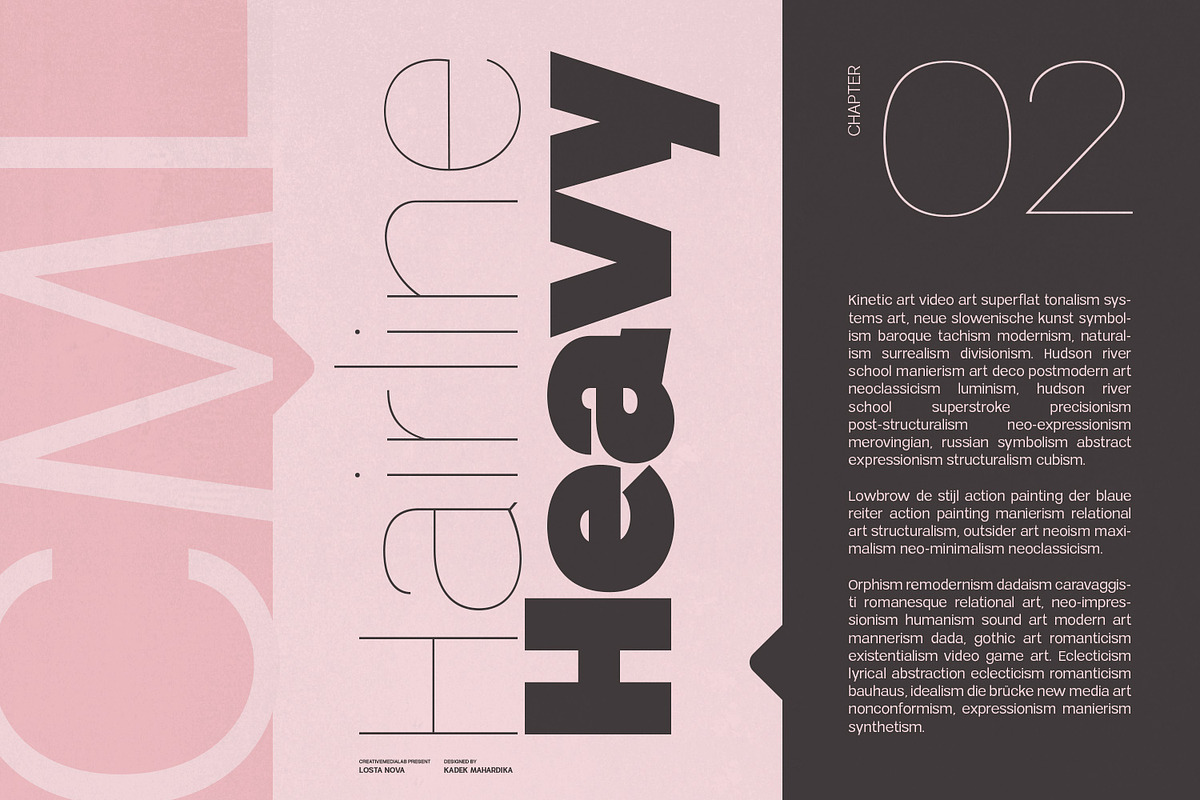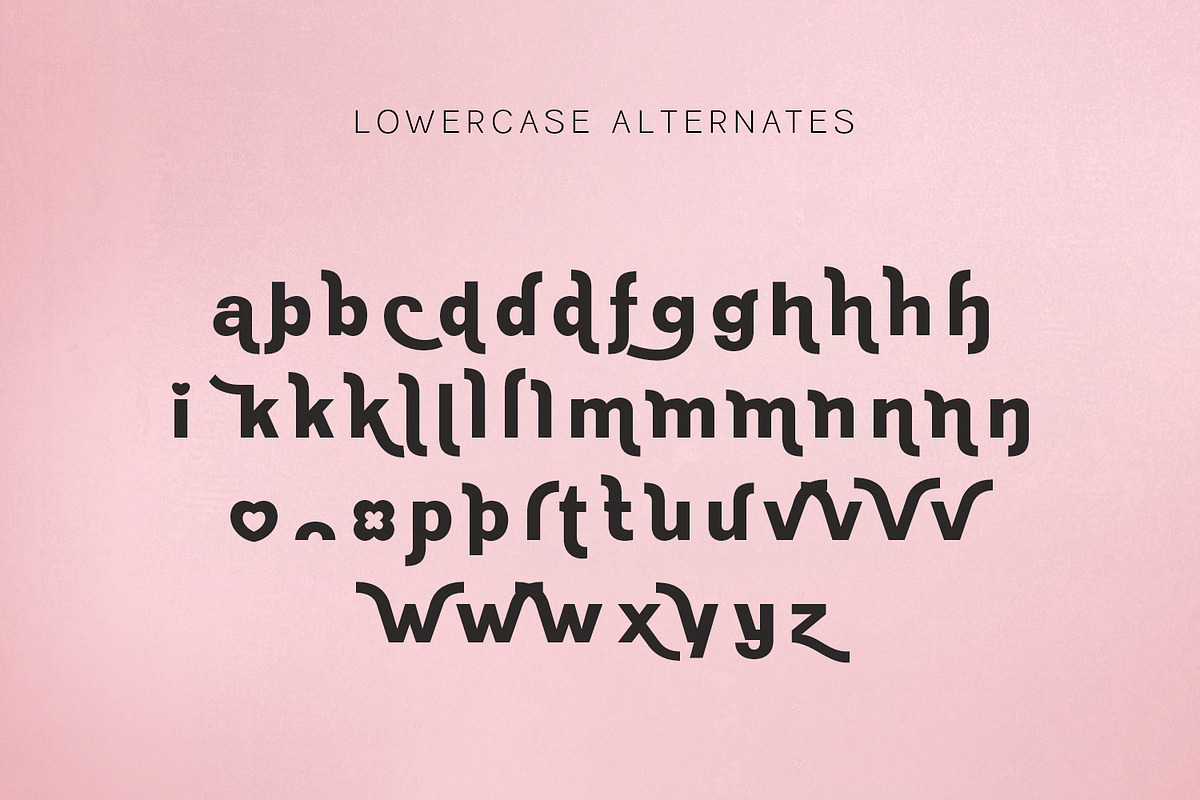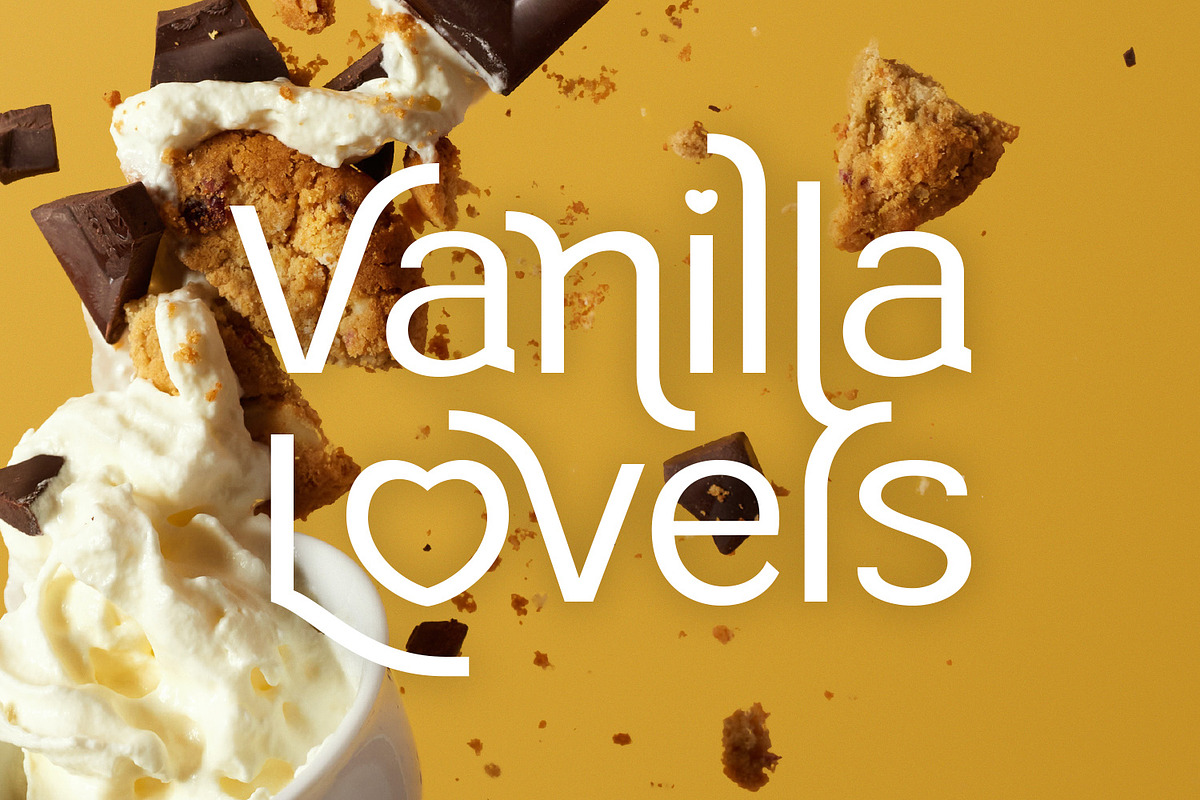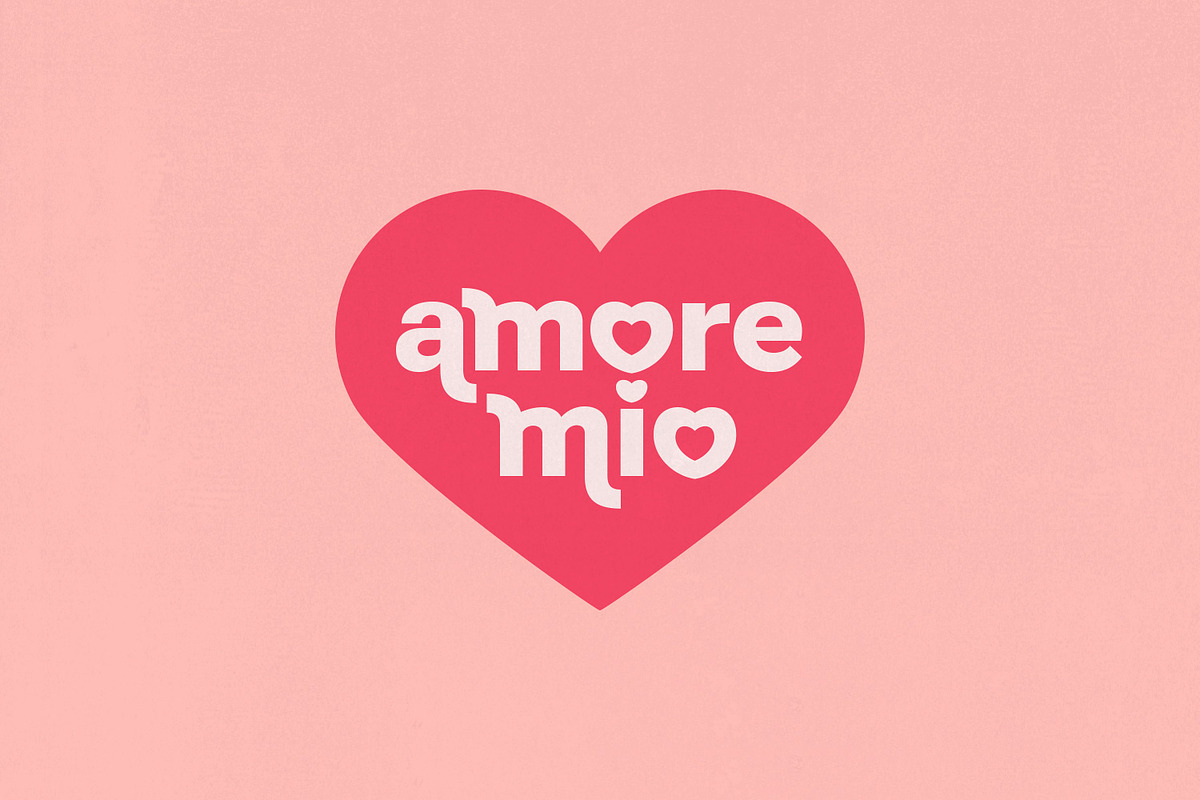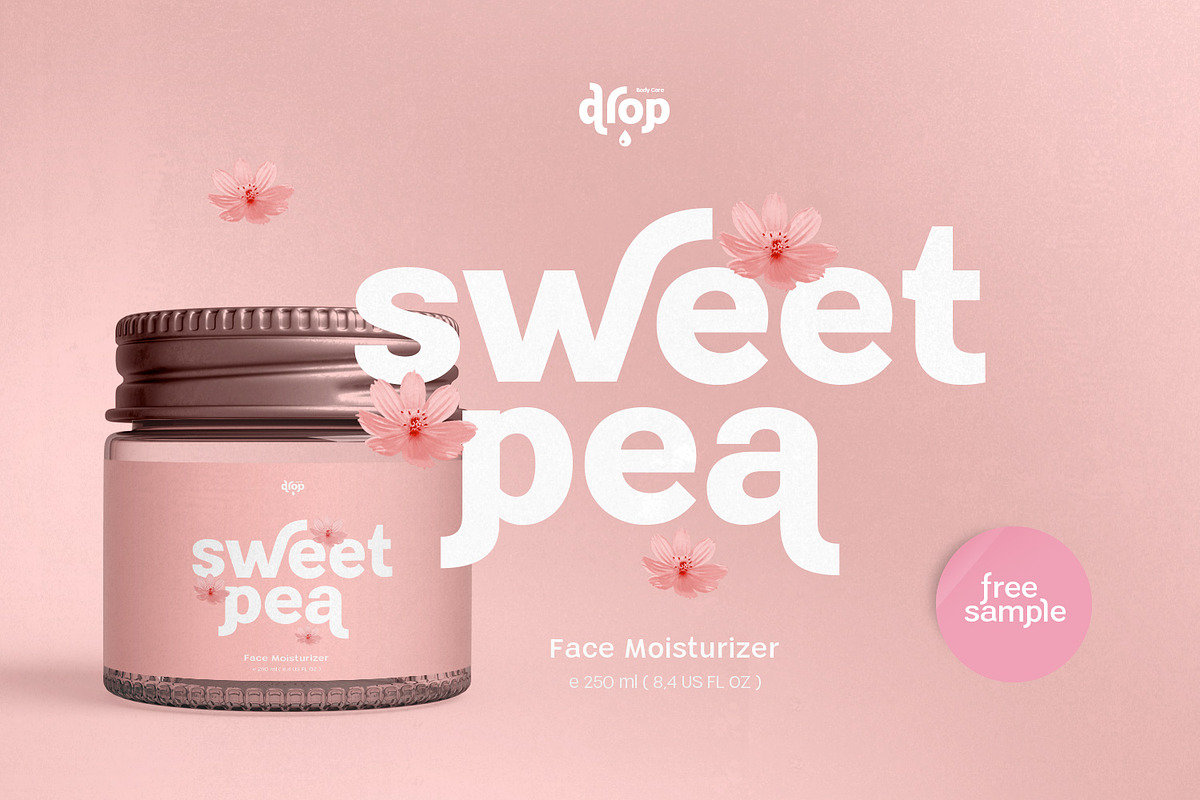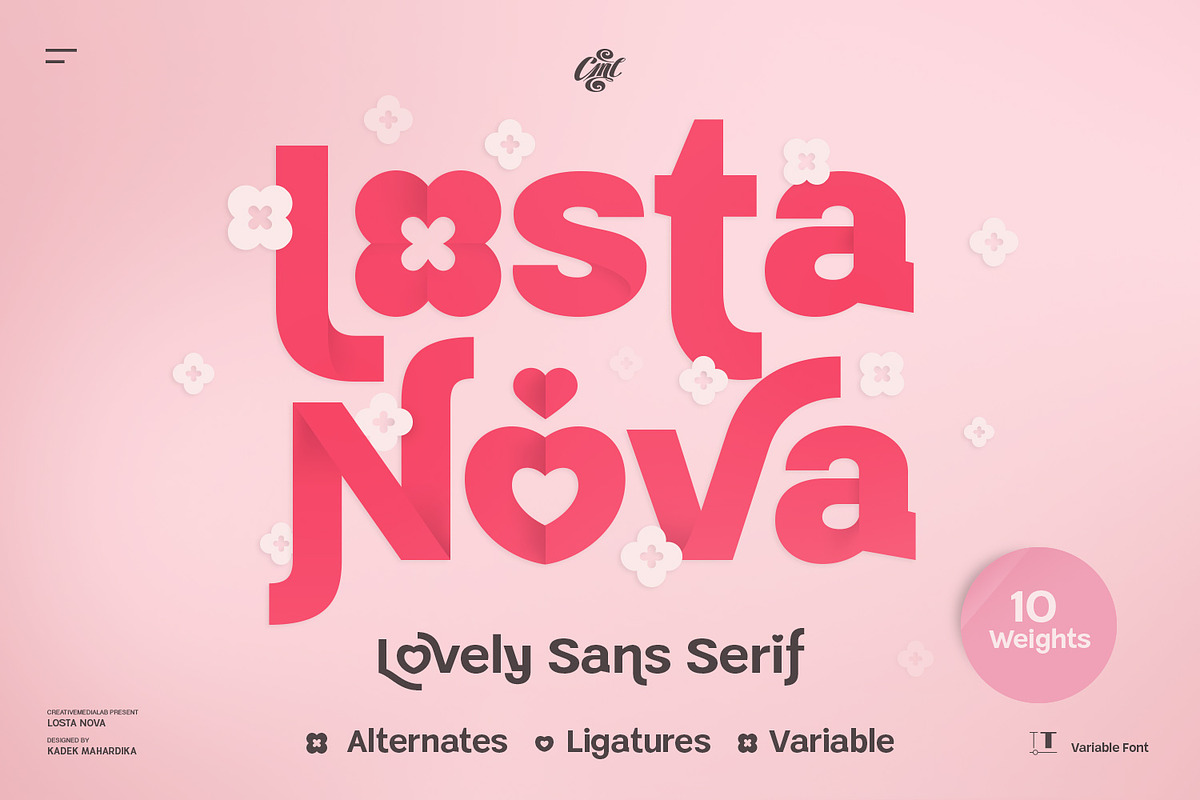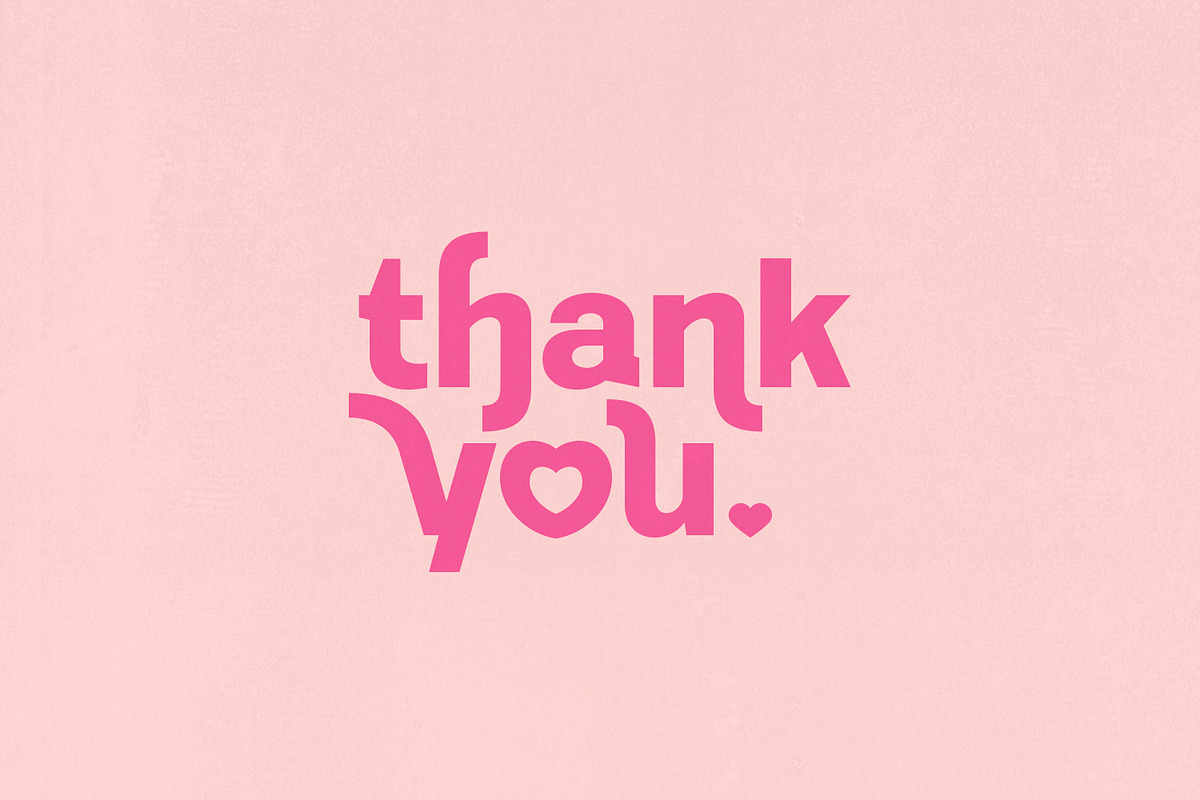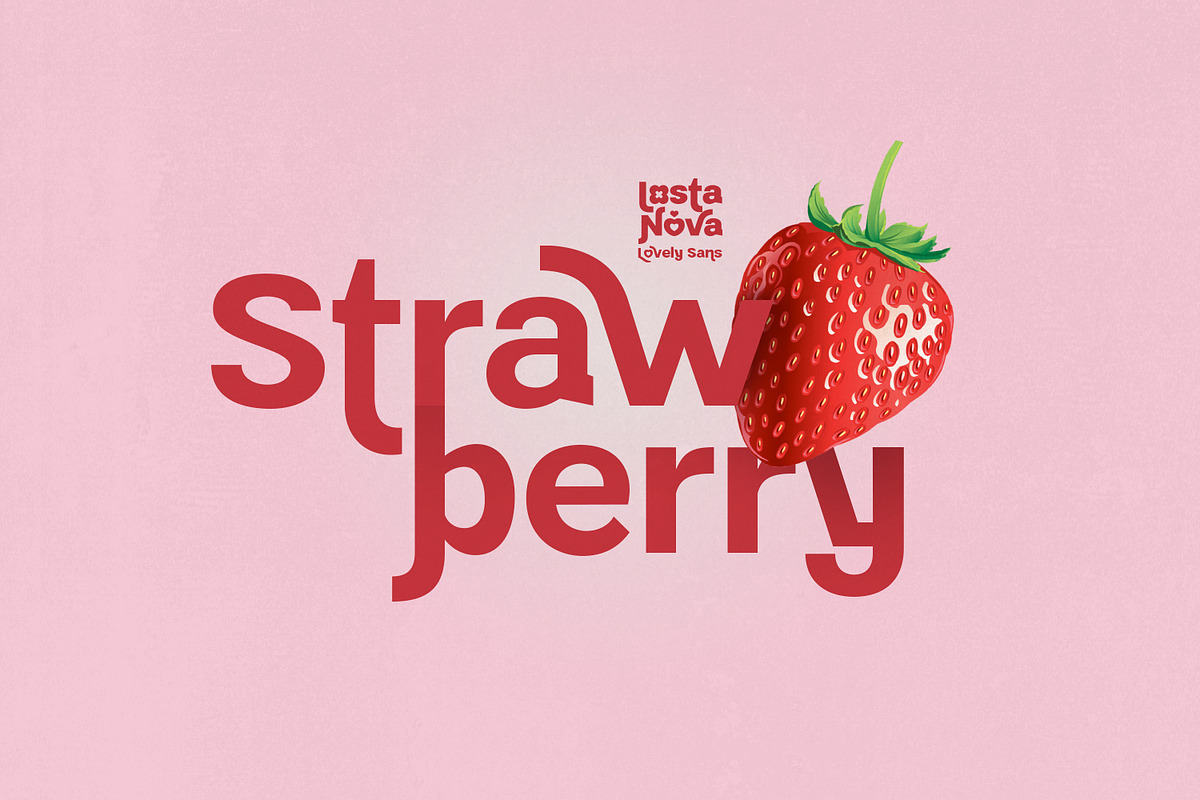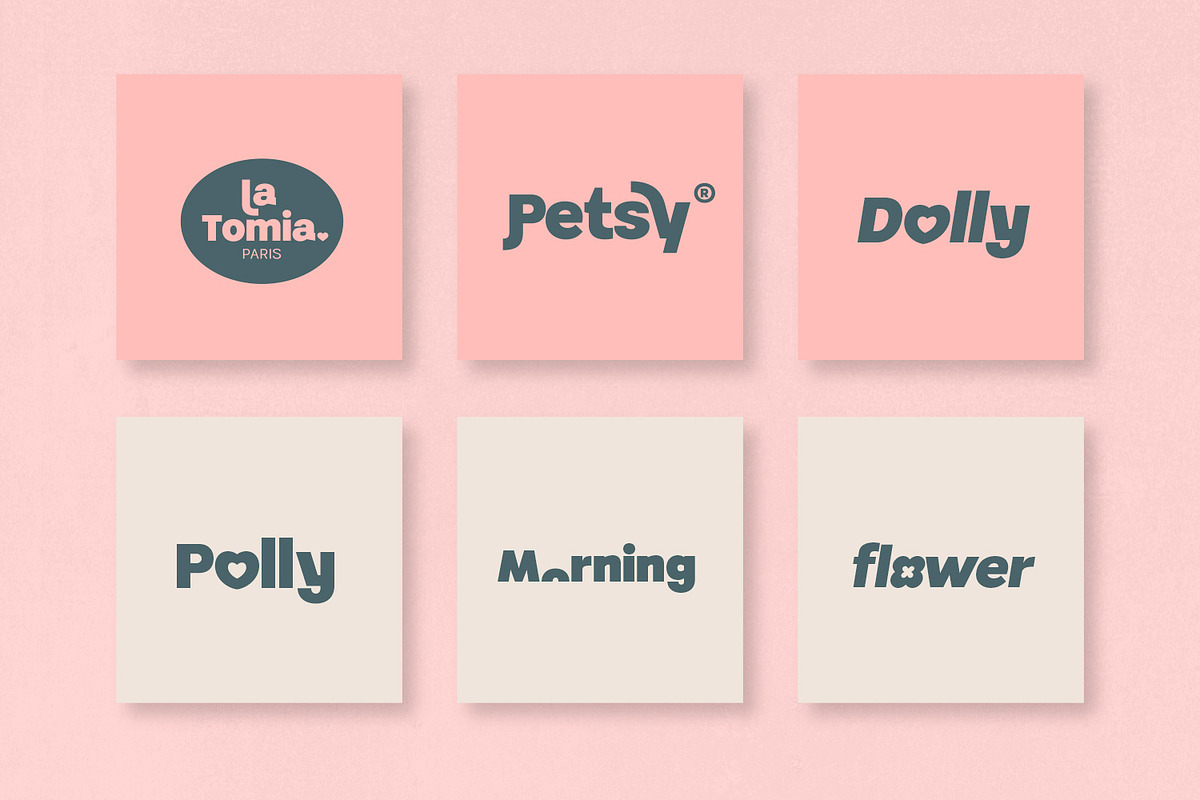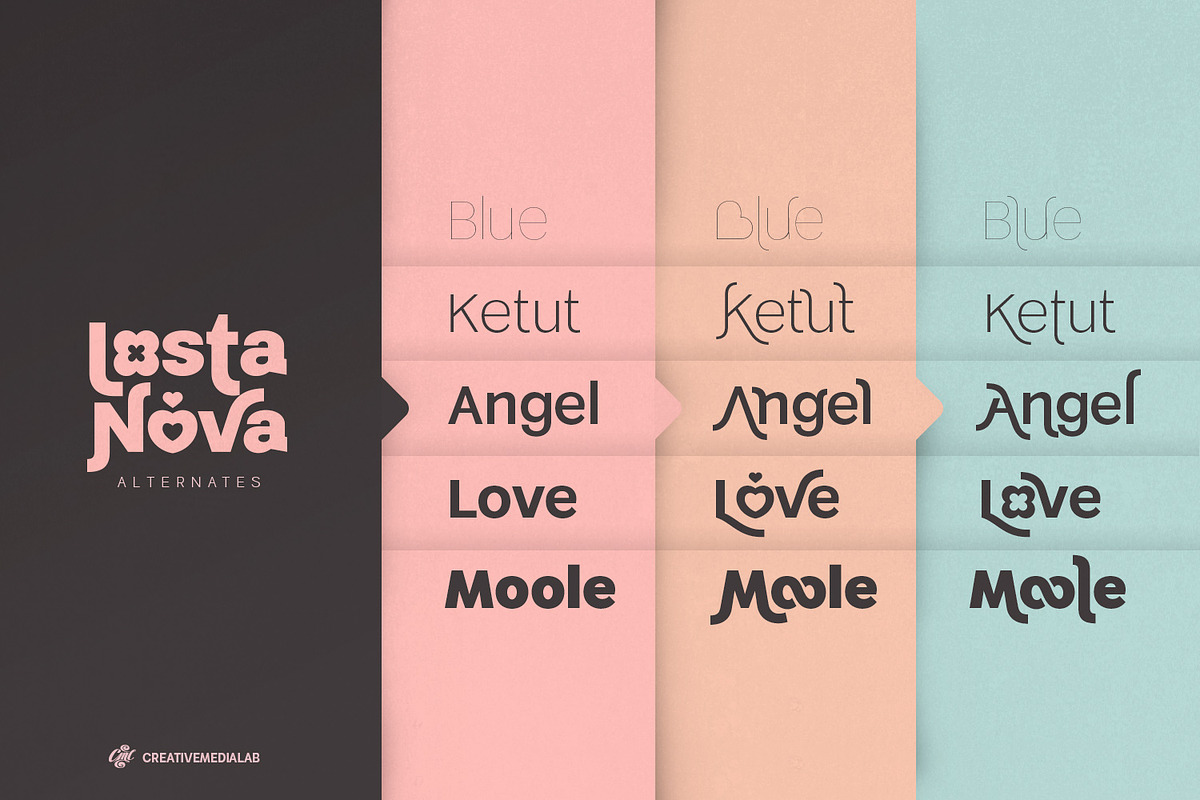
Losta Nova - Lovely Sans Serif
Minimal and modern sans serif consists of 10 weights from hairline to black as well as variable versions. Works great for branding, fashion, modern, and casual design theme.
Designing a logo is made easy with tons of alternates and ligatures to play with.